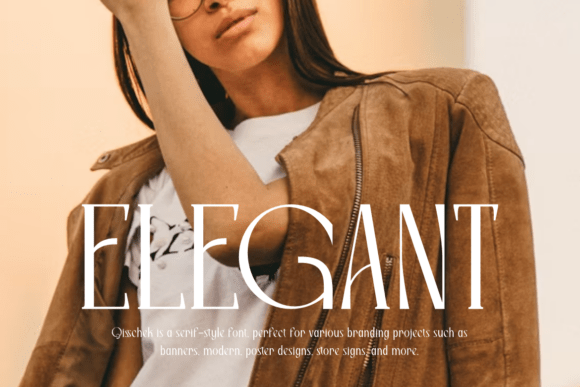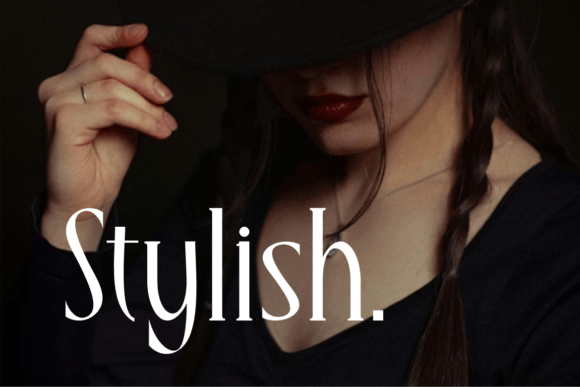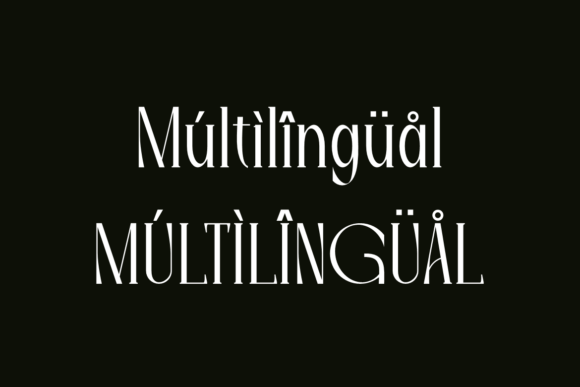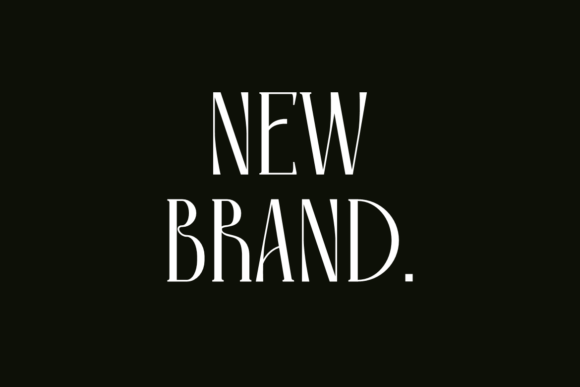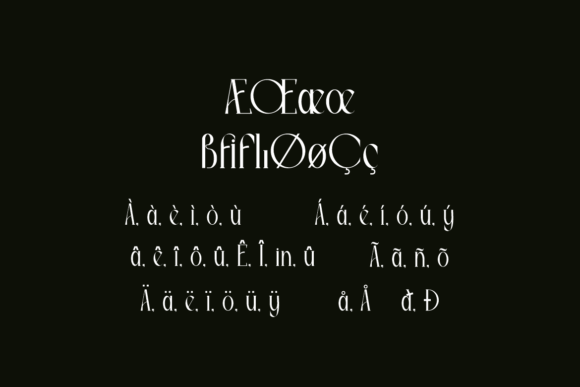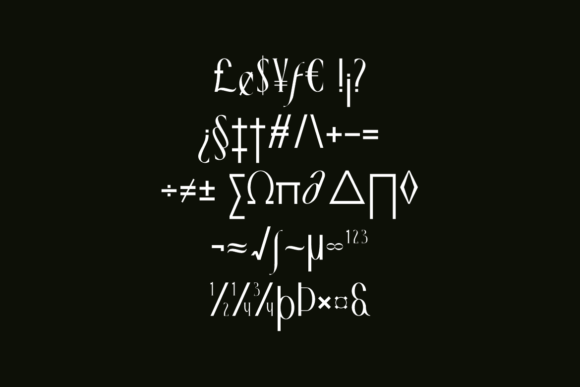
Introduction to Qisschek Font Font
Fonts play a crucial role in design, and the Qisschek Font font is a typeface that brings both character and versatility to any project. Whether you’re working on a branding project, a website, or a print design, the Qisschek Font font offers a unique style that can elevate your work.
Key Features of Qisschek Font Font
Why Choose Qisschek Font Font?
The Qisschek Font font is more than just a typeface – it’s a design tool that helps you communicate your message with style and clarity. Its unique character set and versatile design make it suitable for a wide range of applications, from elegant invitations to bold headlines.
With its carefully crafted letterforms and balanced proportions, the Qisschek Font font ensures readability and visual appeal across all mediums.
What makes Qisschek Font font special?
The Qisschek Font font stands out with its unique design, exceptional readability, and versatility across various design applications.